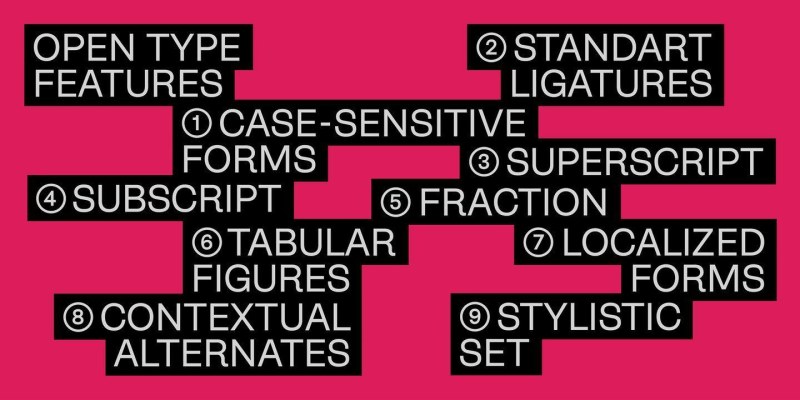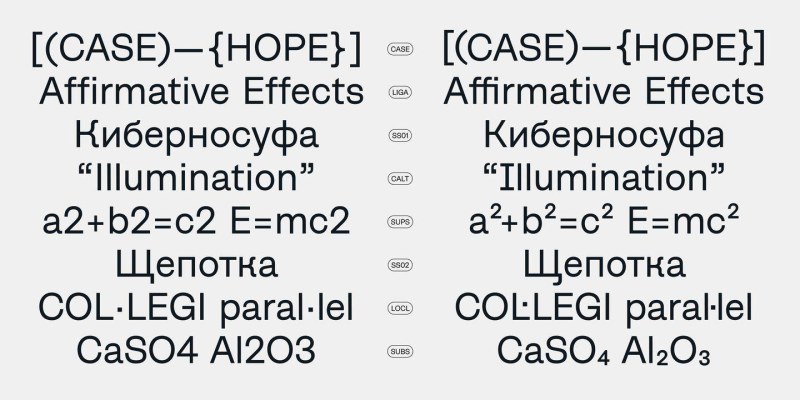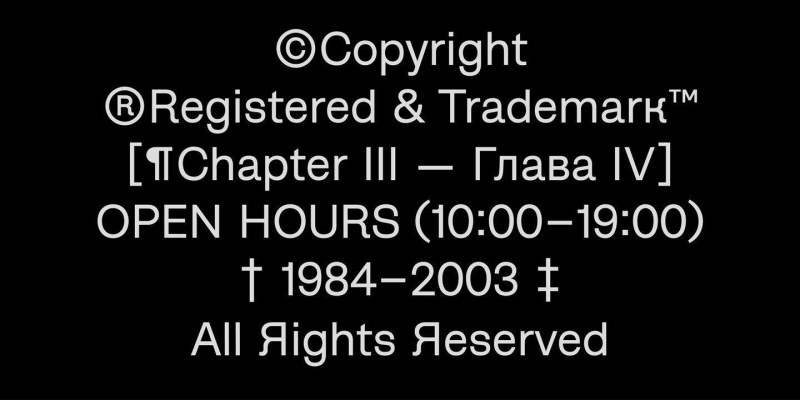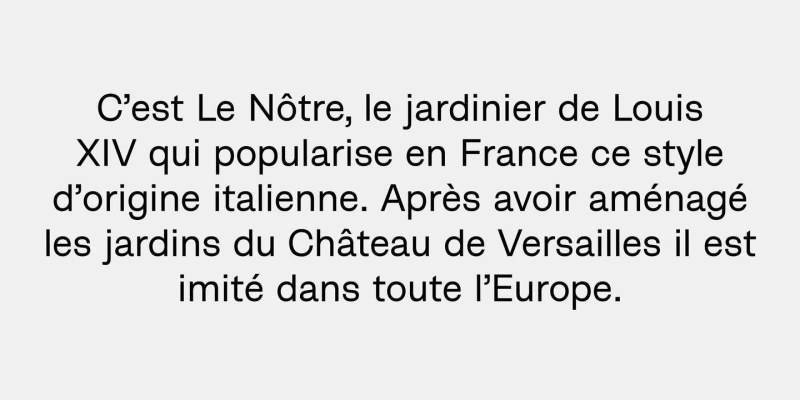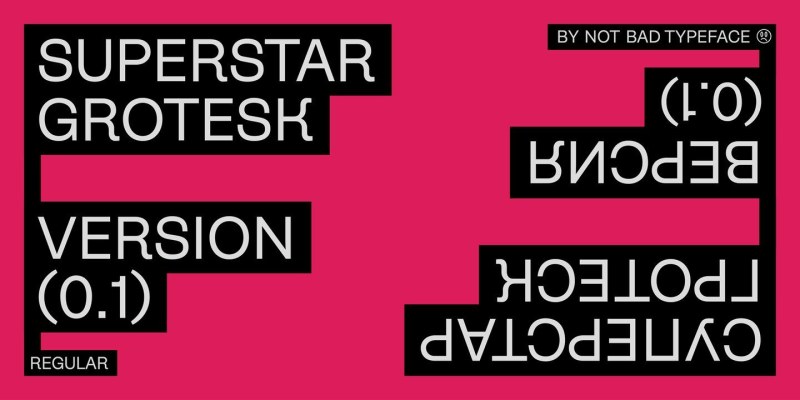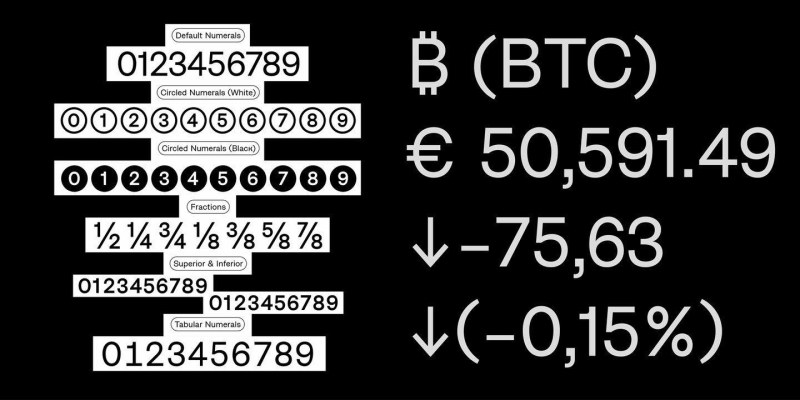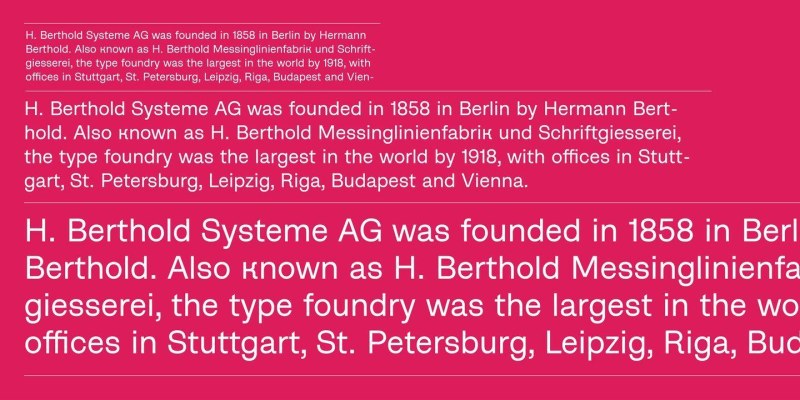
Superstar Grotesk Font
Superstar Grotesk is a free interpretation of the first Cyrillic versions of Royal Grotesk and Akzidenz Grotesk, later the “Roublennaya” typeface is the same irremovable pop artist who lingered in the top of the typographic charts until the digital era, and formed the image of the Cyrillic alphabet in the 20th century.
Where Superstar Grotesk Font works best
Superstar Grotesk Font stays legible at small sizes, which makes it a strong choice for navigation, buttons and dashboards in web design and app interfaces.
Clean sans serifs like Superstar Grotesk Font are the default language of SaaS, fintech and product branding.
What is Superstar Grotesk Font good for?